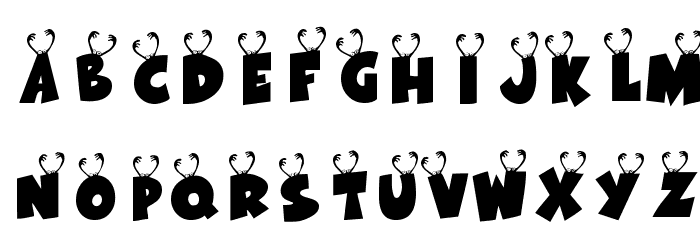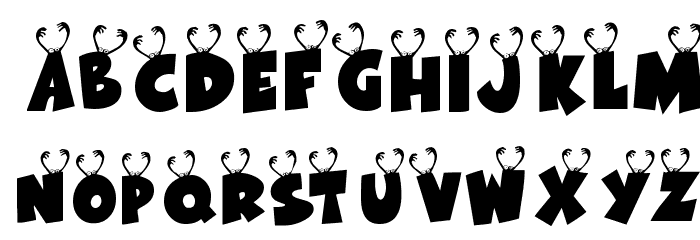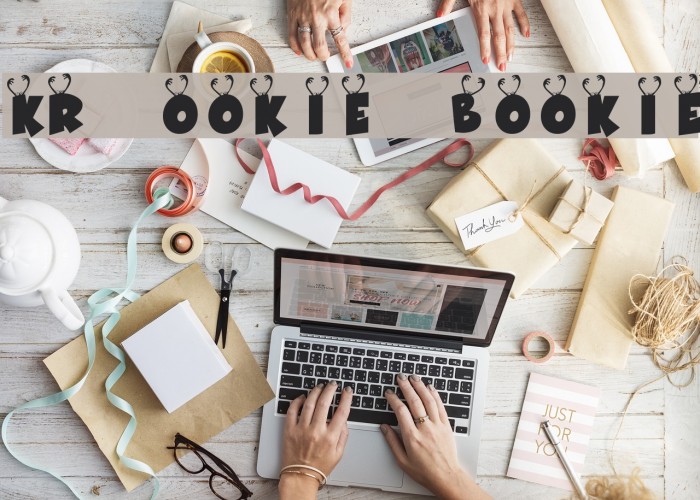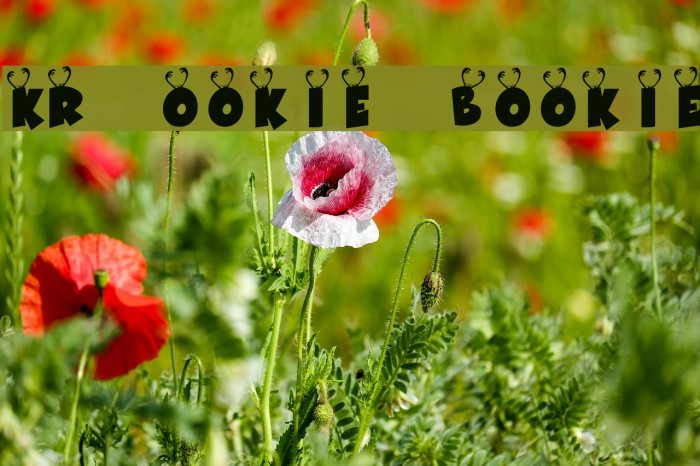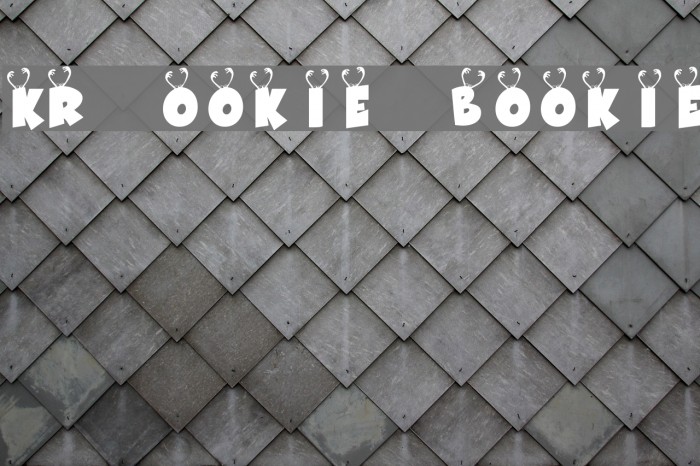
KR Ookie Bookie Font
This playful and whimsical font features bold, chunky letters with unique decorative elements resembling antlers or horns on top of each character. The design is highly stylized, with exaggerated curves and angles that give it a lively and animated appearance. The font maintains a consistent weight throughout, contributing to its bold and eye-catching nature. The characters are closely spaced, enhancing the compact and cohesive look. This font is ideal for projects that require a fun and engaging visual impact, such as children's books, playful branding, or festive event invitations.
A bold, whimsical font with decorative antler-like elements on each letter.
- Proposed Projects: Children's books, playful branding, festive event invitations, posters, and party flyers.
- Character Spacing: Tight
- Overall Style: Playful, Whimsical